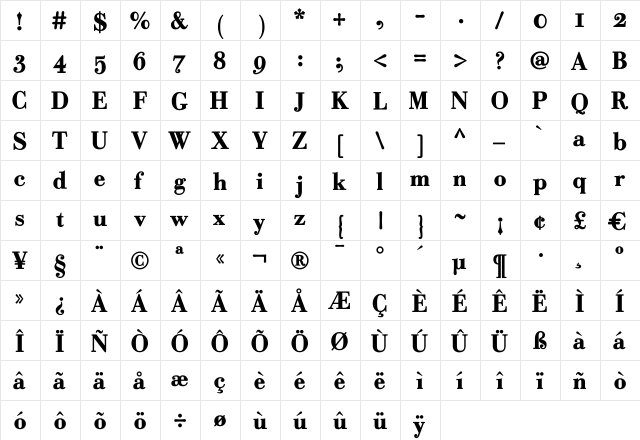
Robusta Bold Font Preview
Robusta Bold
Robusta Bold Font Details
Design Context for Robusta Typeface
Robusta offers clean, dependable letterforms without strong stylistic allegiance, making it a practical choice for designers who need flexibility. The heavy weight commands attention and anchors typographic hierarchies.
Pro Tip: Use Robusta in both headline and body roles to test its range before committing to a single application.